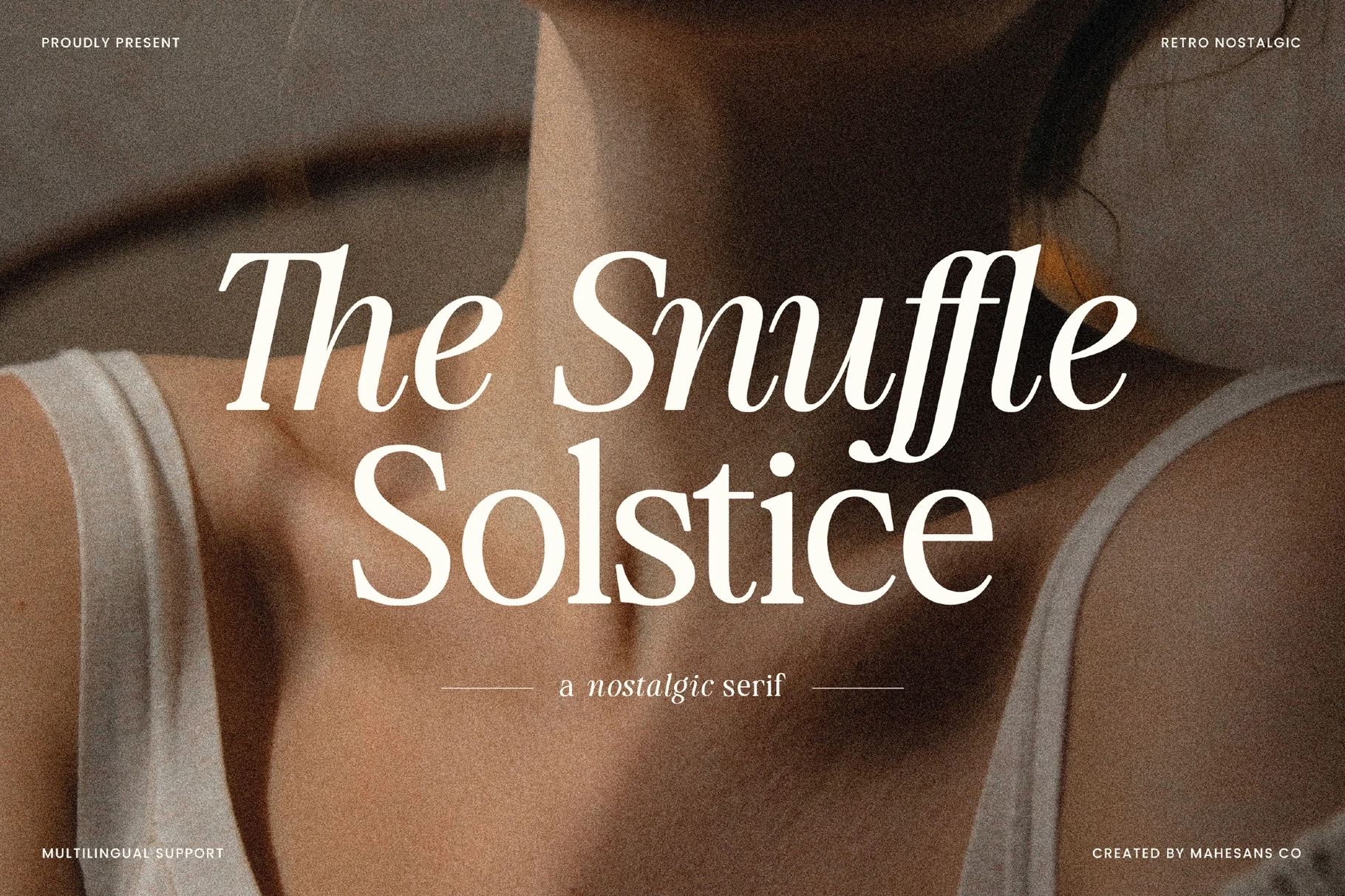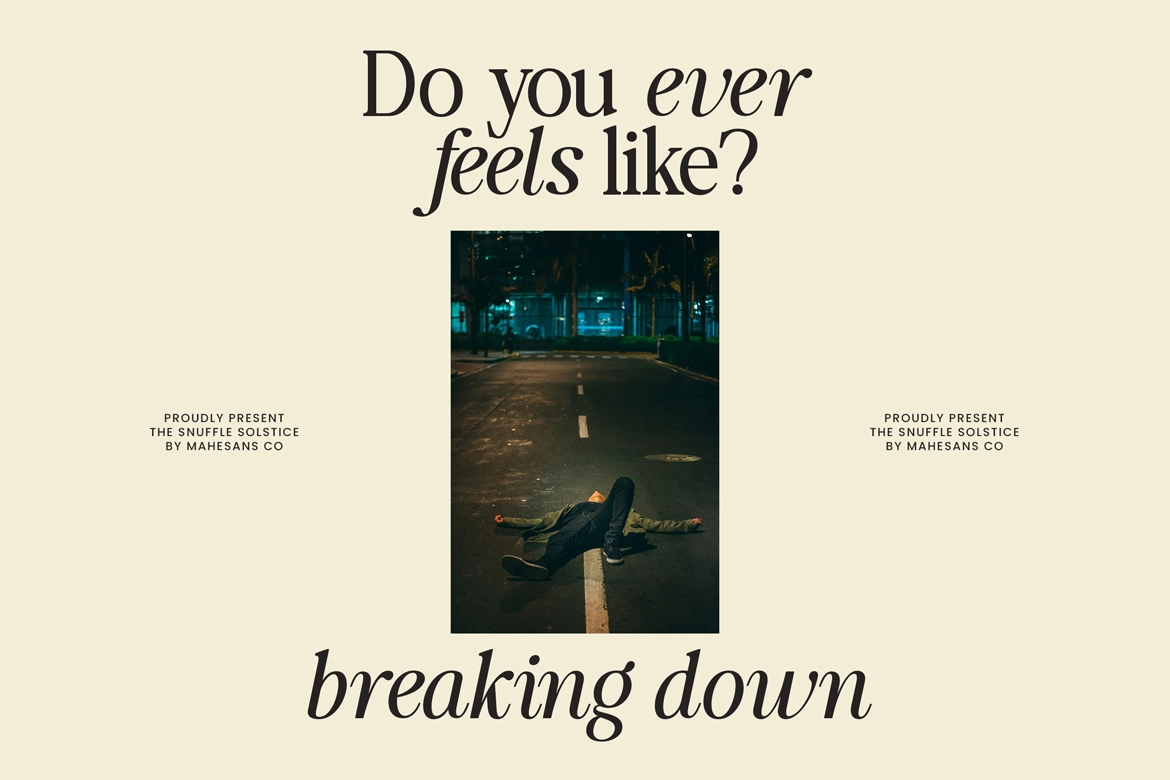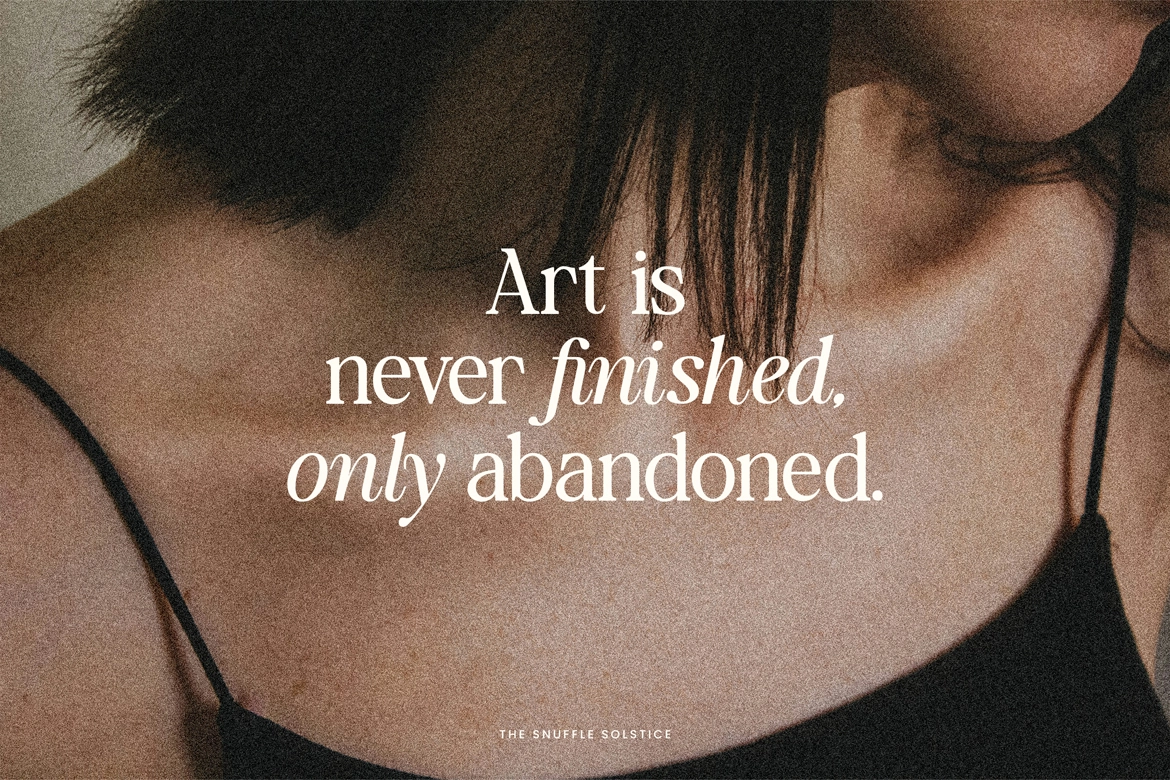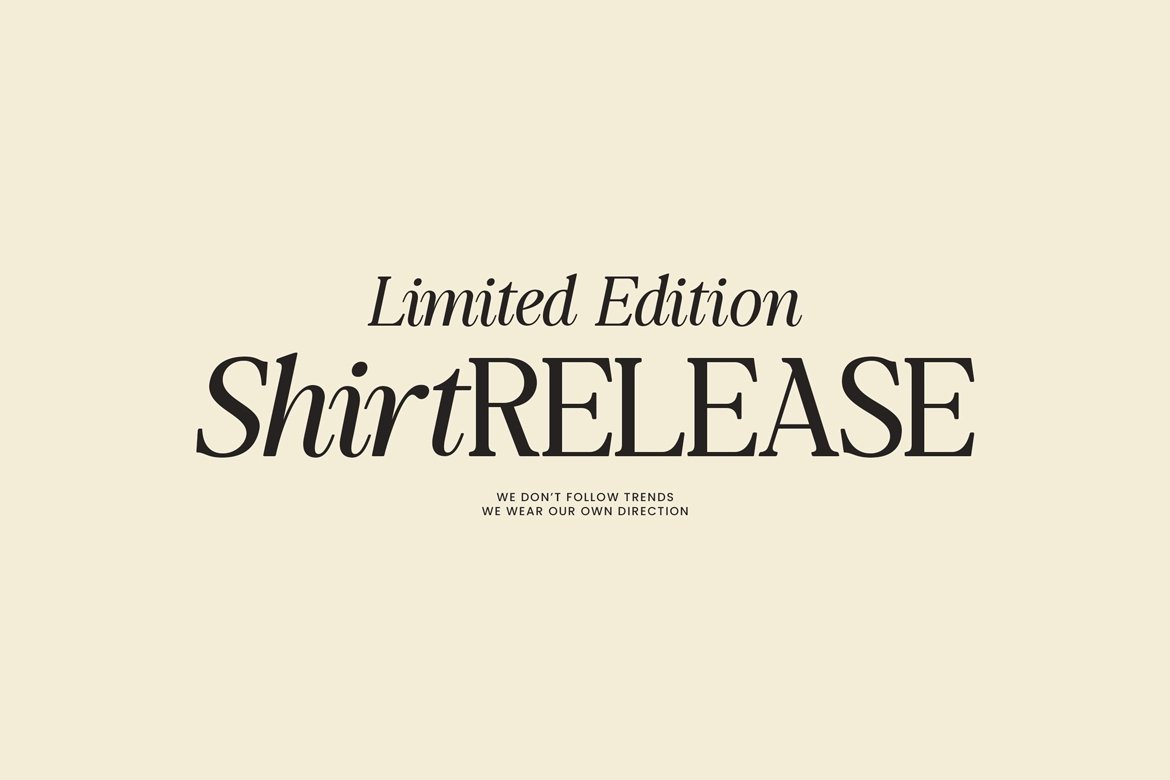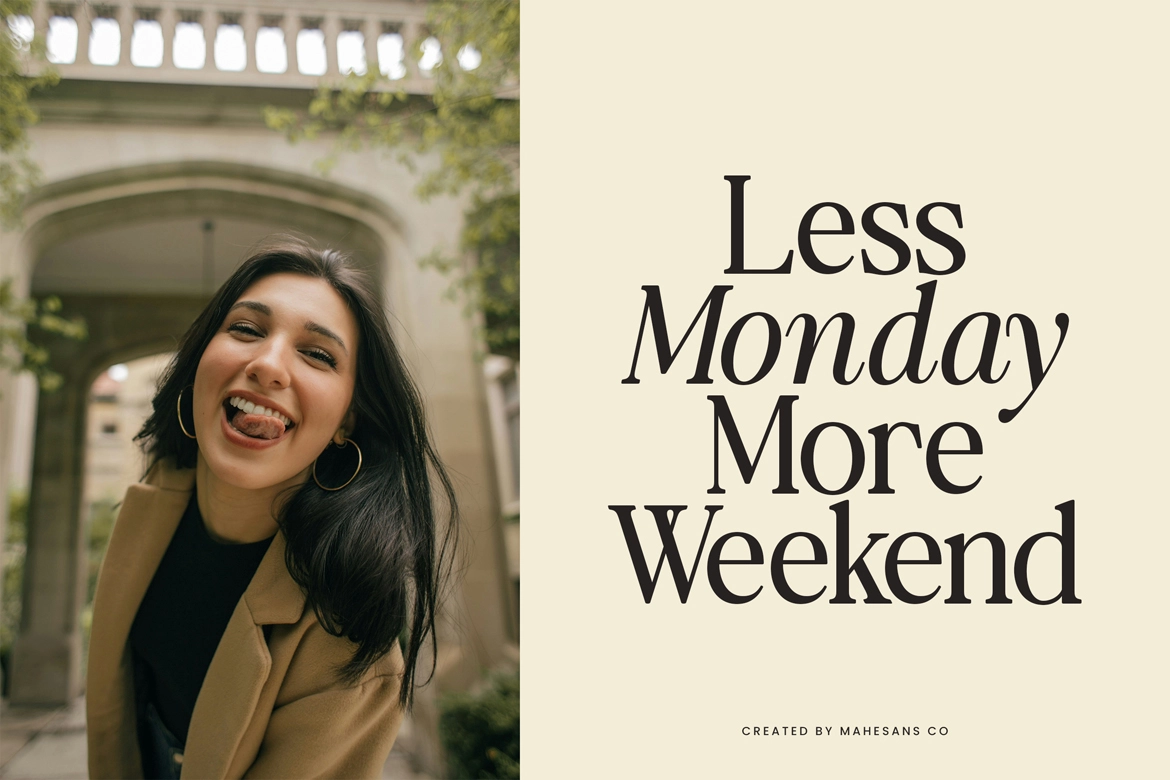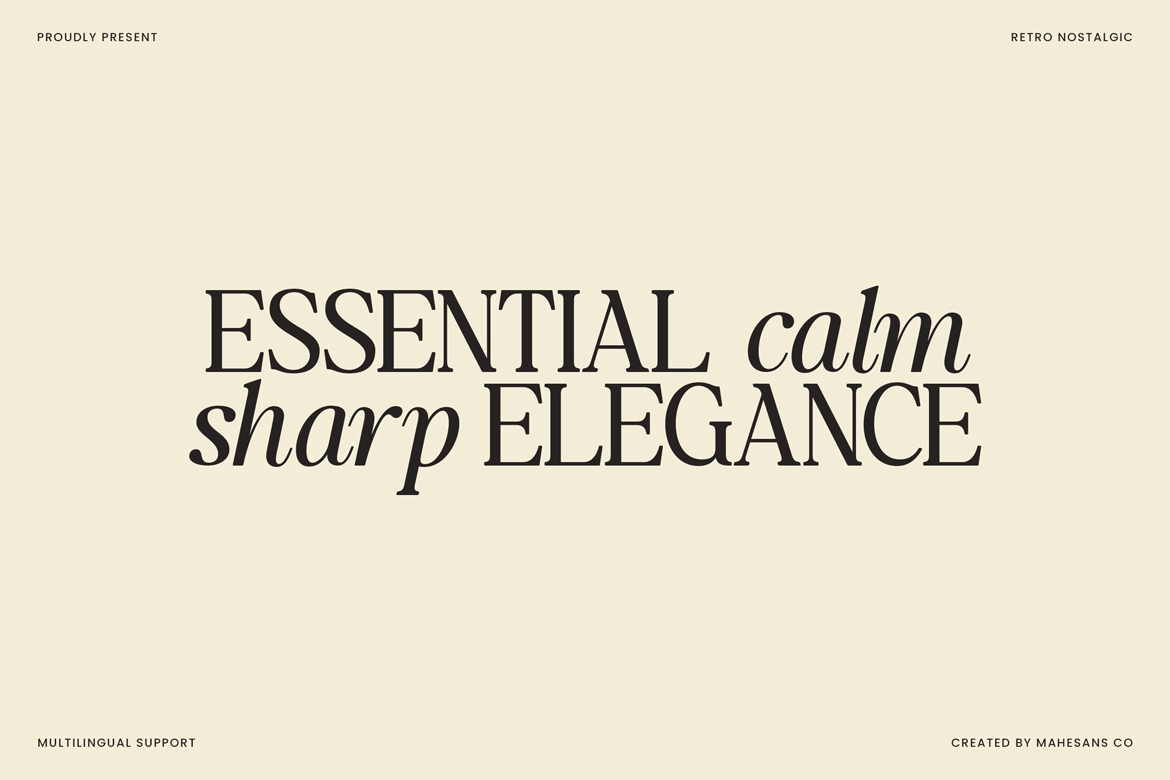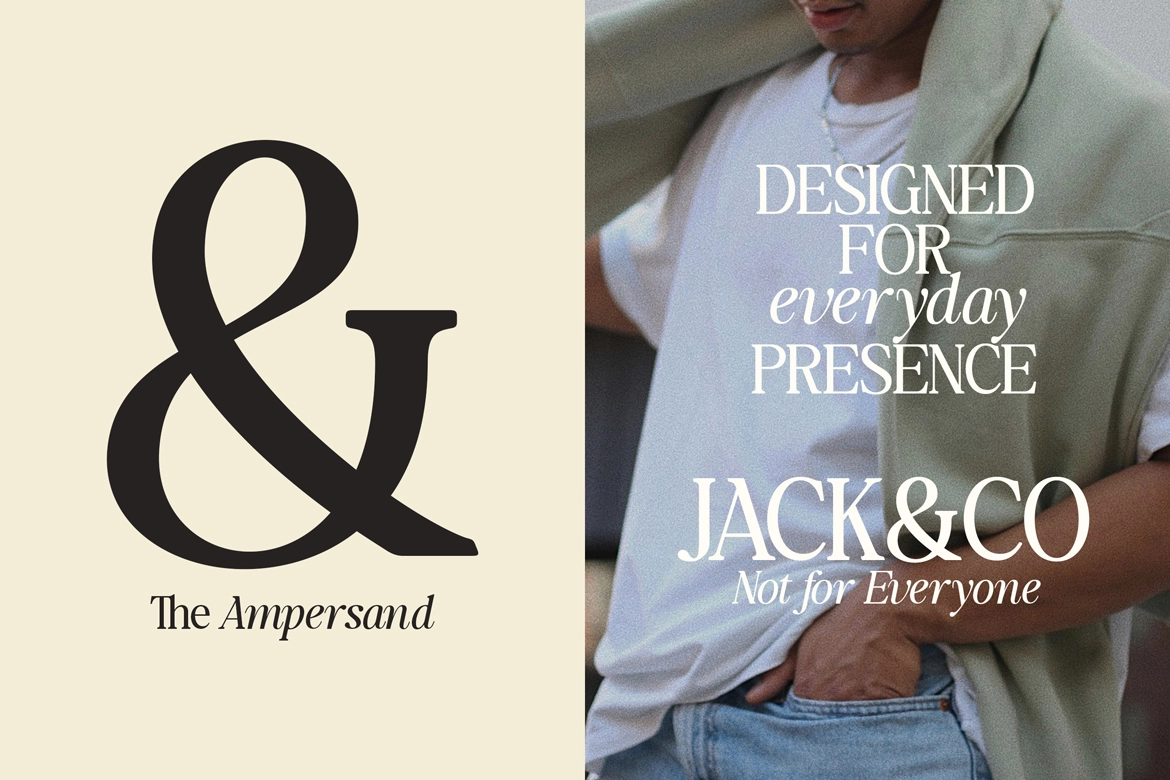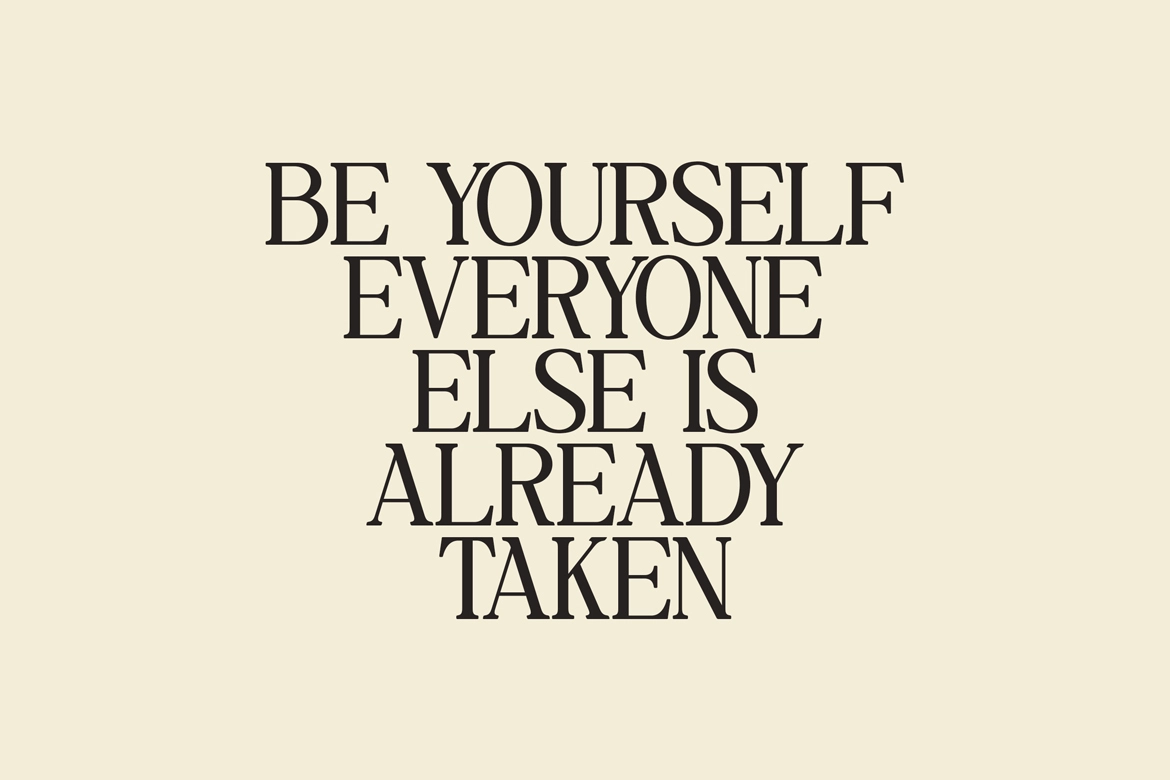
Snuffle Solstice — Elegant Retro Serif Font Duo
The Snuffle Solstice is an elegant retro serif font duo that pairs two typographic registers the way classic American editorial design did at its best — a wide, bracketed display roman with even colour and confident weight, alongside a high-contrast cursive italic with swash capitals, looping ascenders, and the calligraphic rhythm of mid-century magazine mastheads. The contrast between the two styles is the point: the roman holds the structure, the italic carries the expression.
The Snuffle Solstice works at any scale where quiet authority matters. Use the roman for fashion branding, packaging headlines, apparel graphics, and editorial title stacks; bring in the italic for logotype accents, pull quotes, subheads, and any setting where a single word needs to land differently from the rest. Together they suit lifestyle brands, boutique hospitality, beauty packaging, independent publishing, and personal editorial projects.